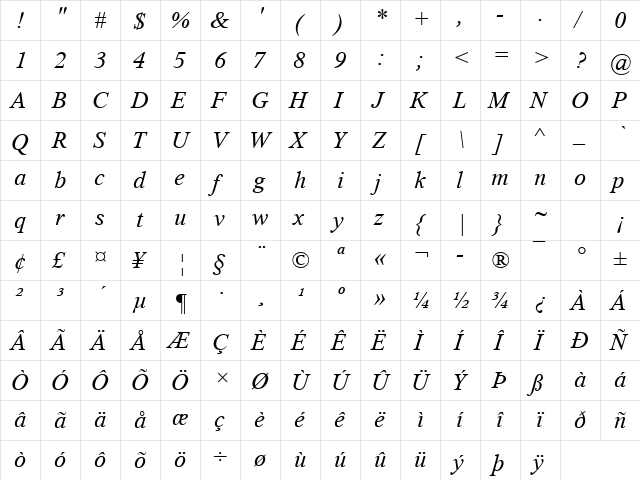
Thorndale Italic
| Foundry | Agfa Monotype Corporation |
| Designer | Agfa Monotype Drawing Office |
Design Context for Thorndale Typeface
Thorndale offers clean, dependable letterforms without strong stylistic allegiance, making it a practical choice for designers who need flexibility. The slanted form adds forward momentum and visual energy.